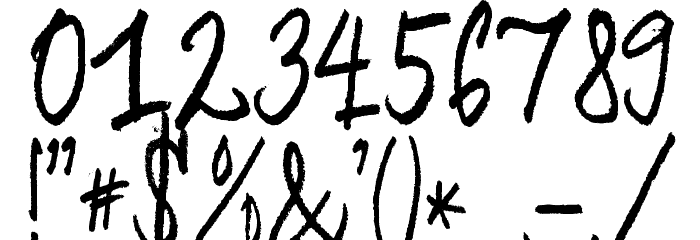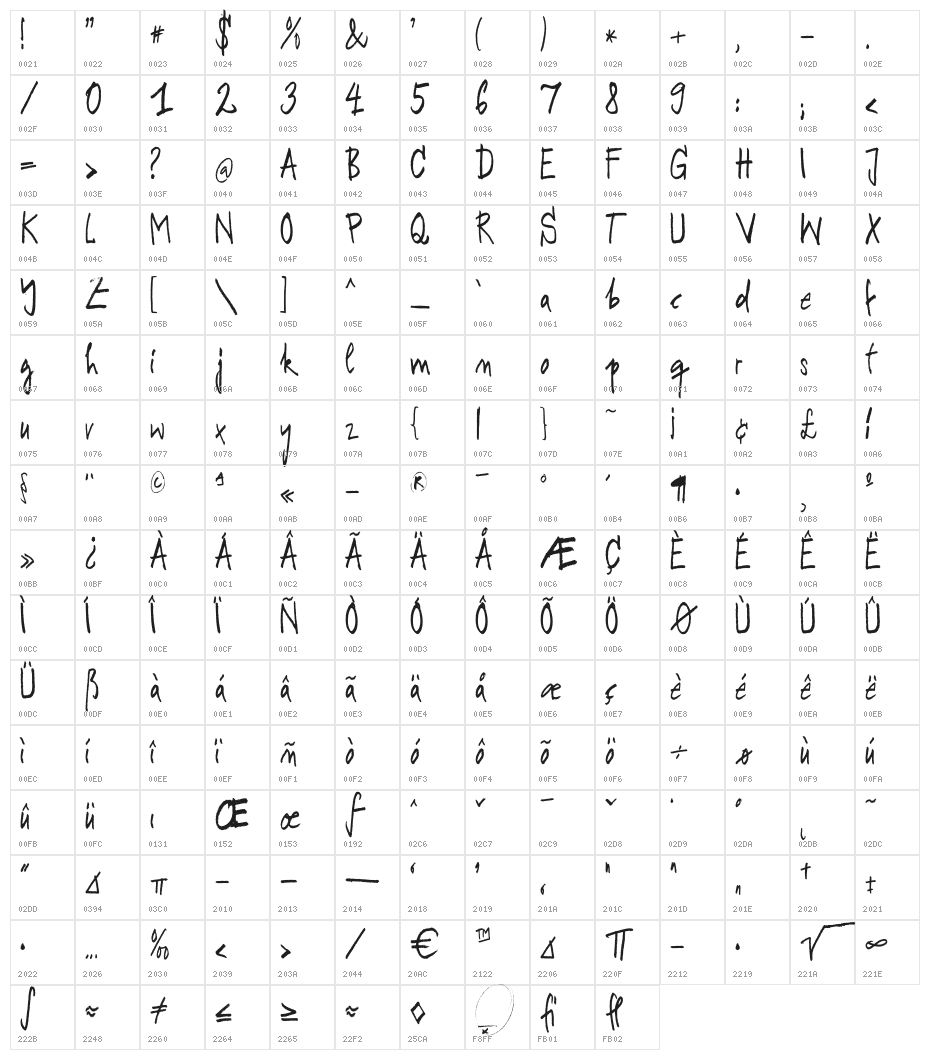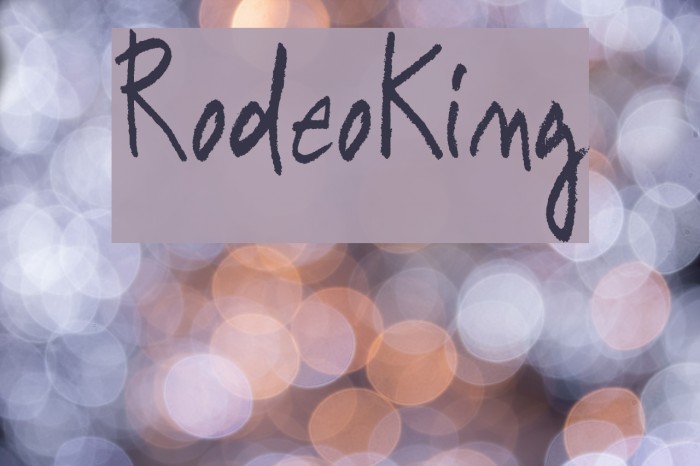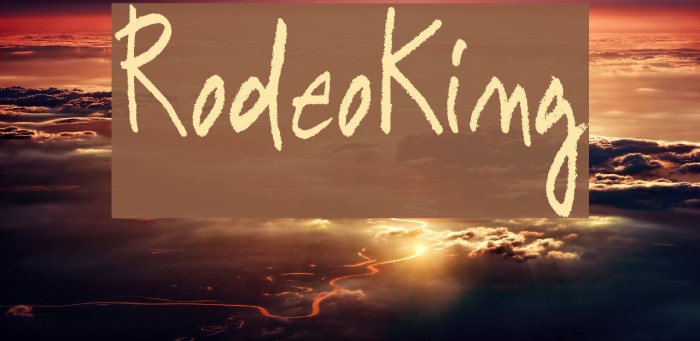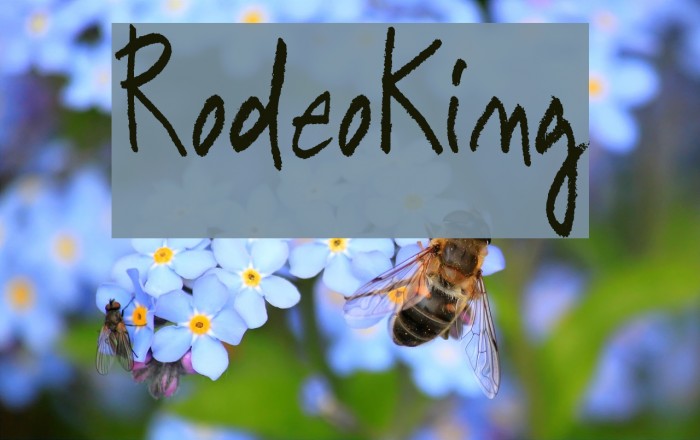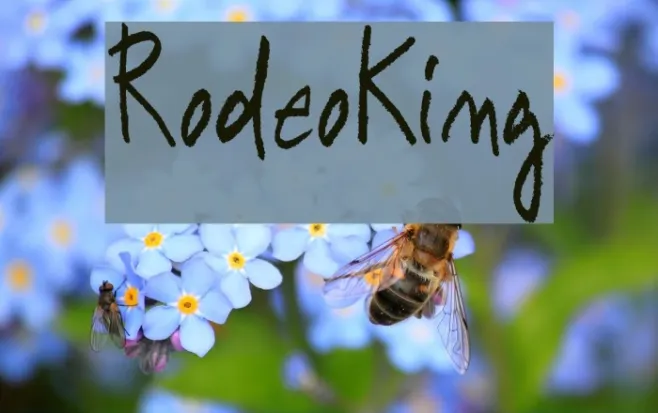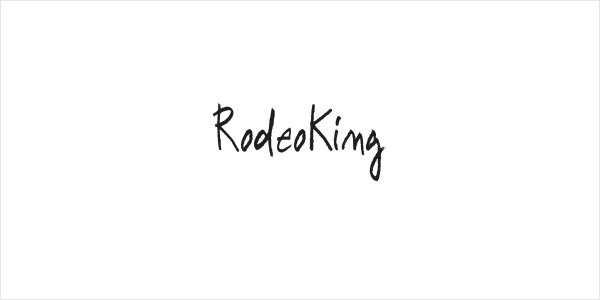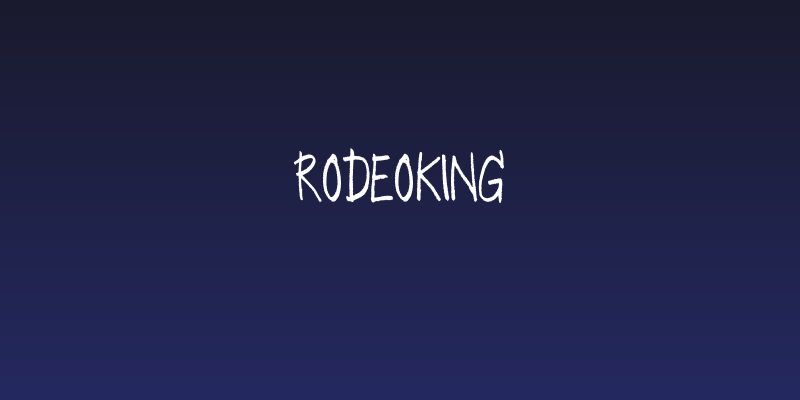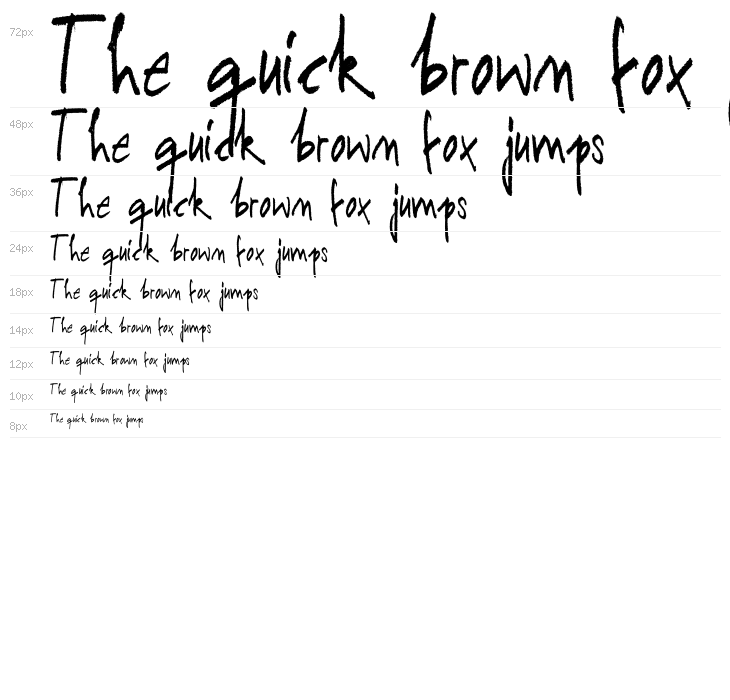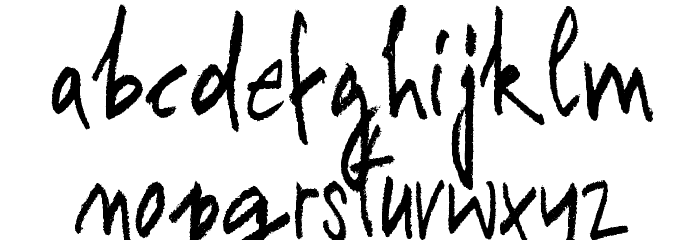
RodeoKing Font
RodeoKing Description
This font exudes a raw, hand-drawn aesthetic reminiscent of casual handwriting. The strokes are uneven, with a natural, organic flow that gives it a personal and authentic feel. The uppercase letters are bold and slightly irregular, while the lowercase letters maintain a consistent style with a playful touch. Numbers and special characters follow the same hand-crafted style, adding to the font's cohesive look. This font is ideal for projects that require a personal, informal touch, such as greeting cards, invitations, or artistic posters.
| Overall Style | Casual, Artistic |
| Use Case | Logos, Posters, Invitations |
| Proposed Projects | Greeting cards, invitations, artistic posters, personal branding. |